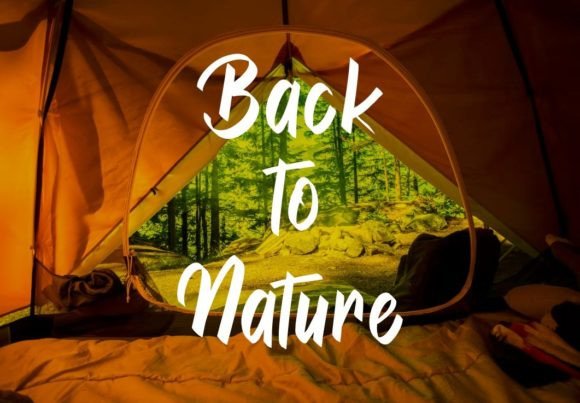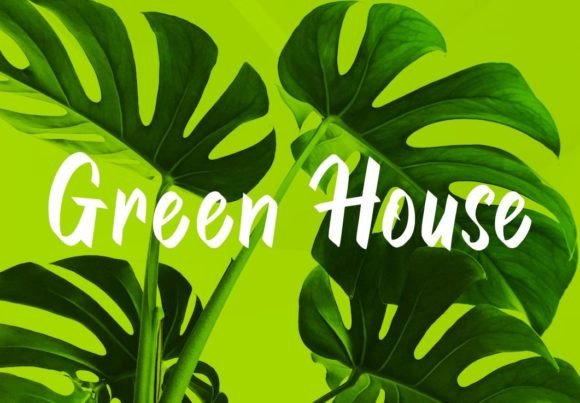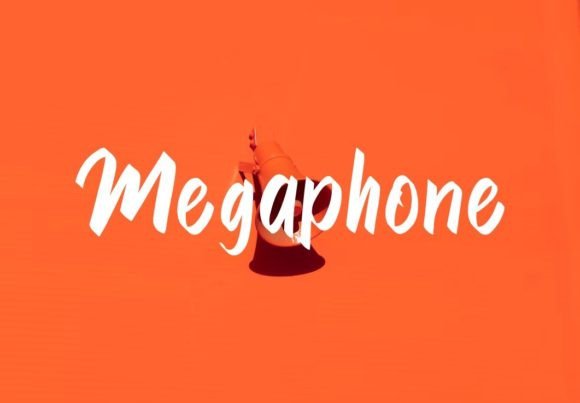
About Branding Font
Branding is a gorgeous, cursive and thick lettered handwritten font, crafted to give your headlines and logotype projects a stylish touch. This font reads as strong, confident, and dynamic and can add tons of nostalgic character to your designs.